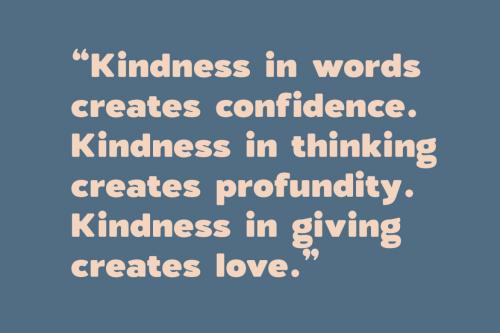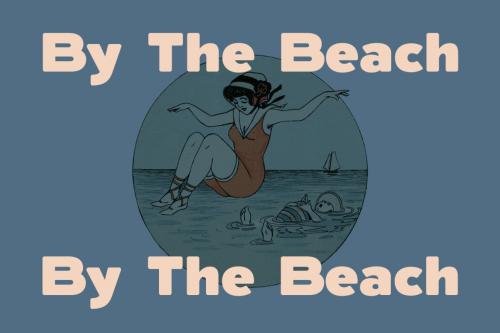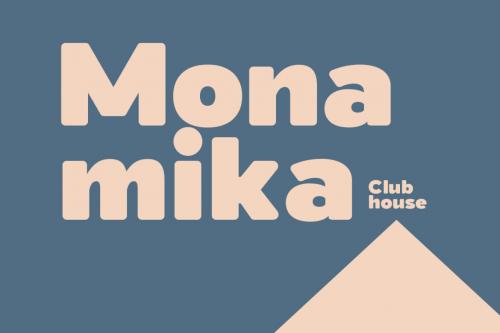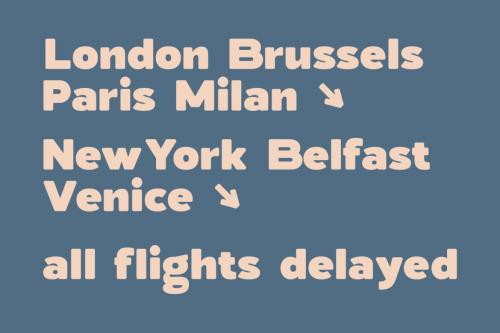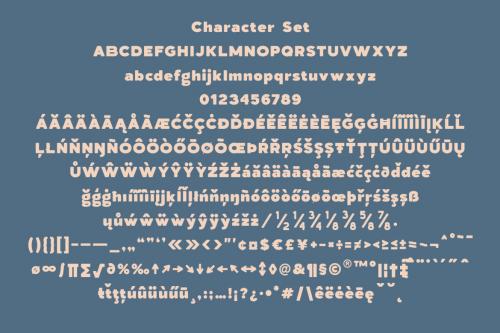
Bilagro is a modern simply rounded sans serif font. With bold contrast stroke, fun character with a bit of ligatures and alternates. To give you an extra creative work. Bilagro font support multilingual more than 100+ language. This font is good for logo design, Social media, Movie Titles, Books Titles, a short text even a long text letter and good for your secondary text font with sans or serif. Make a stunning work with Bilagro font.